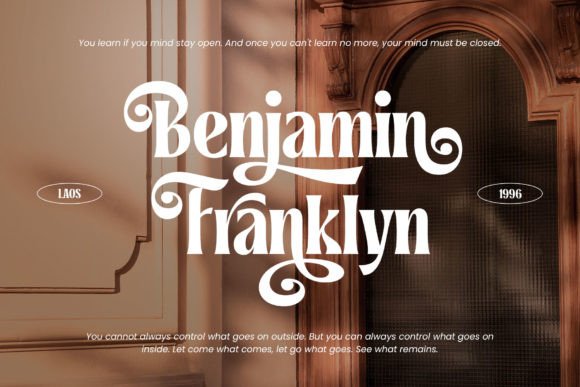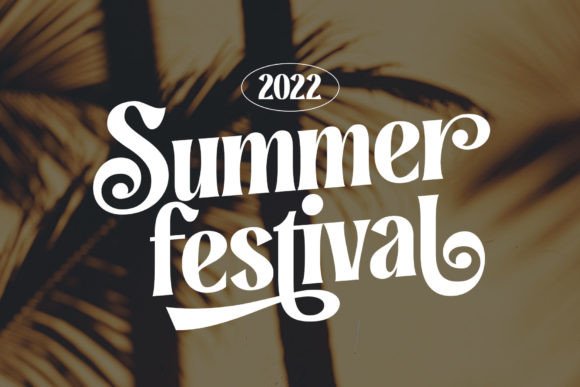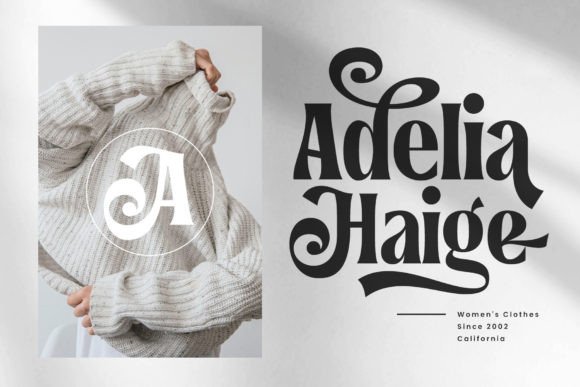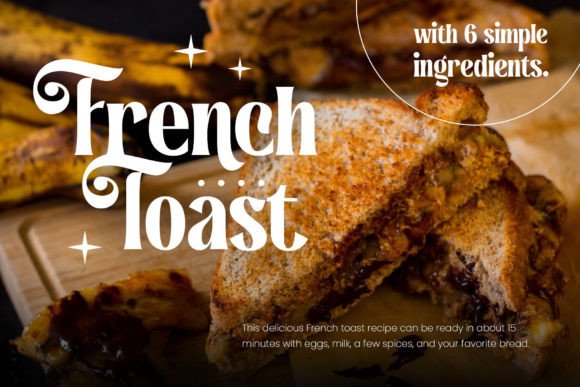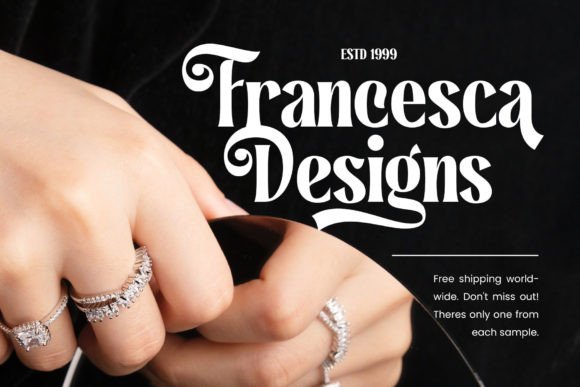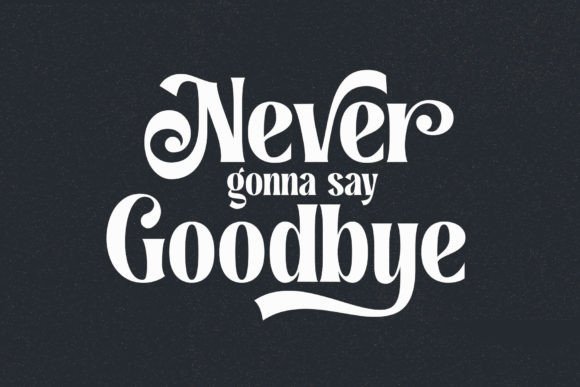
Introduction to Rosiana Font
Have you ever been working on a creative project and suddenly, the perfect font just slips your mind? The moment of clarity is fleeting, and you’re left with a design that’s missing that special something. For designers, this is a common dilemma, but it’s about to get a whole lot easier with the introduction of the Rosiana Font.
This sophisticated, charming serif font is specifically designed for luxury, elegant, feminine projects that demand a high level of sophistication and style. With its fashionable touch, the Rosiana Font is the perfect design resource for creating modern, chic designs that exude elegance and refinement. Whether you’re working on a high-end branding project or a wedding invitation, this font is sure to impress.
What sets the Rosiana Font apart is its PUA encoding, which means you can access all of the glyphs and swashes with ease, making it a valuable asset for any designer looking to add a touch of sophistication to their work.
Key Features of Rosiana Font
- High-quality, elegant design perfect for creative projects and design resources.
- Comes in a single font style with multiple weights to cater to different design needs.
- Perfect for use in digital and print media, including websites, logos, and business cards.
Honest Review: Rosiana Font
I recently had the chance to work with the Rosiana Font, and I must say it’s been a great addition to my design resource collection. The first thing that caught my attention was its elegant and sophisticated look, perfect for any creative project that requires a touch of sophistication.
Here are some of the things that I like about the Rosiana Font:
- ✨ High quality typography: The font is well-designed and visually appealing, making it perfect for any design project.
- ✨ Transparent background: The font’s transparent background allows for easy layering and blending with other design elements.
However, there are a few limitations that I’ve encountered:
- ⚠️ Limited font sizes: While the font is well-designed, it’s limited in terms of font sizes, which can be a constraint for designers who need to use it for large or small text.
- ⚠️ No italic or bold variations: The font only comes in regular weight, which can be limiting for designers who need to use italic or bold text.
Overall, the Rosiana Font is a great addition to any designer’s collection. Its high quality typography and transparent background make it perfect for any creative project, and its free download makes it an excellent resource for designers on a budget. While it has its limitations, it’s still a great option for designers who need a sophisticated and elegant font.
Tips for Getting the Most Out of Rosiana Font
For the best results, use Rosiana Font in conjunction with other high-quality design resources. Experiment with different font sizes, colors, and styles to create a unique look for your creative project. You can also use Rosiana Font in combination with images and graphics to create a visually appealing design.
Rosiana Font is ideal for a variety of creative projects, including logos, business cards, brochures, and presentations. Its elegant and unique style makes it perfect for designs that require a touch of sophistication and refinement. With Rosiana Font, you can create high-quality designs that stand out from the crowd.